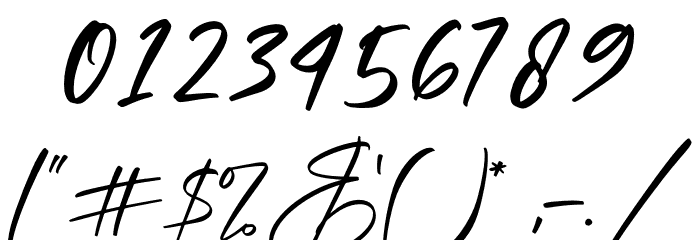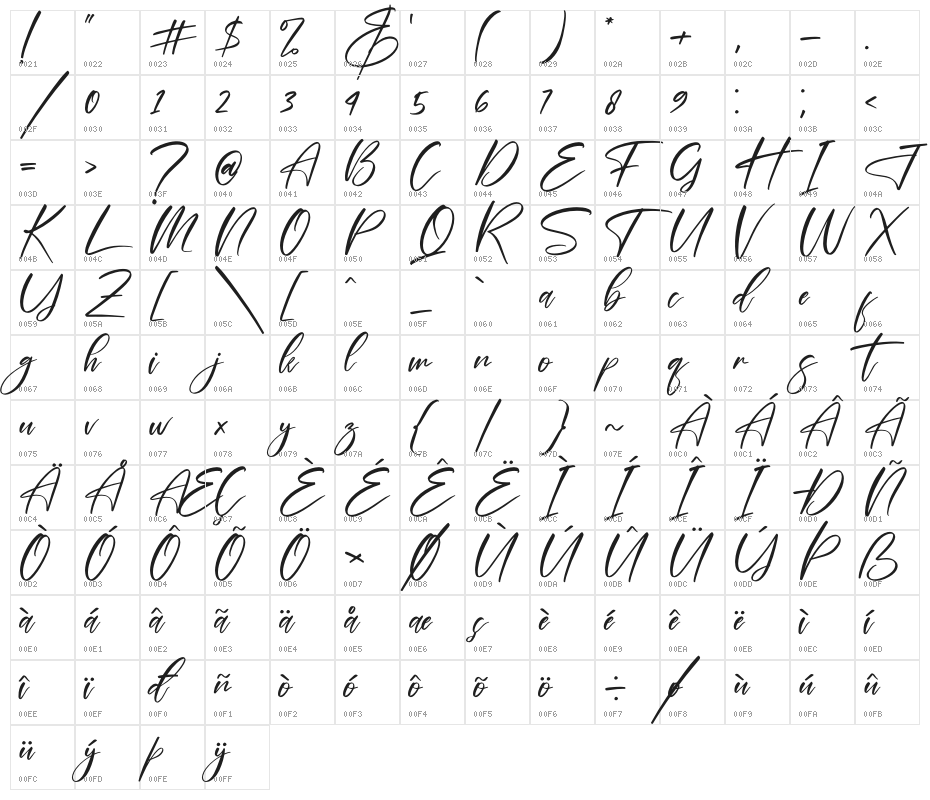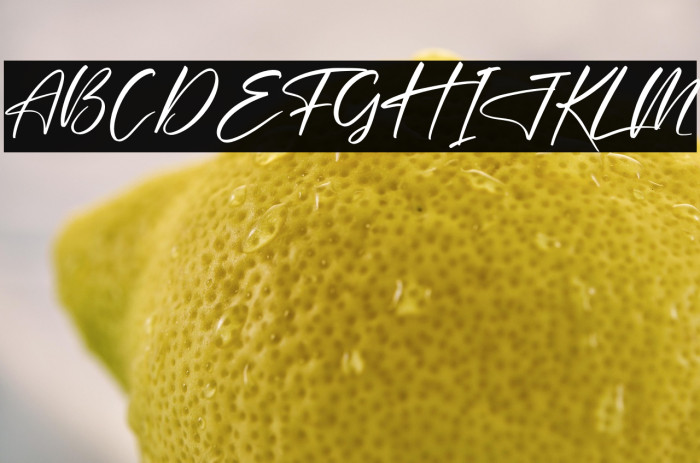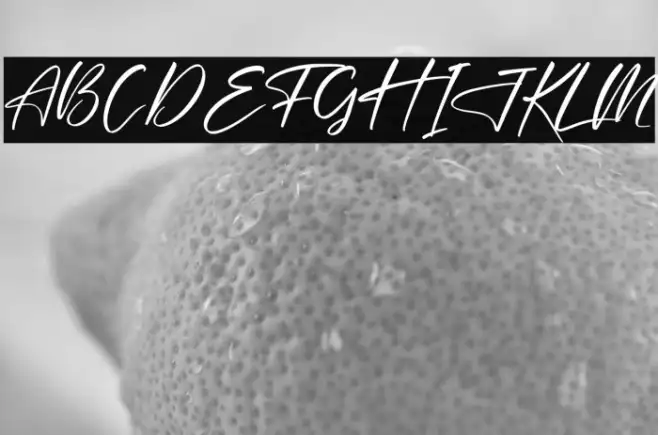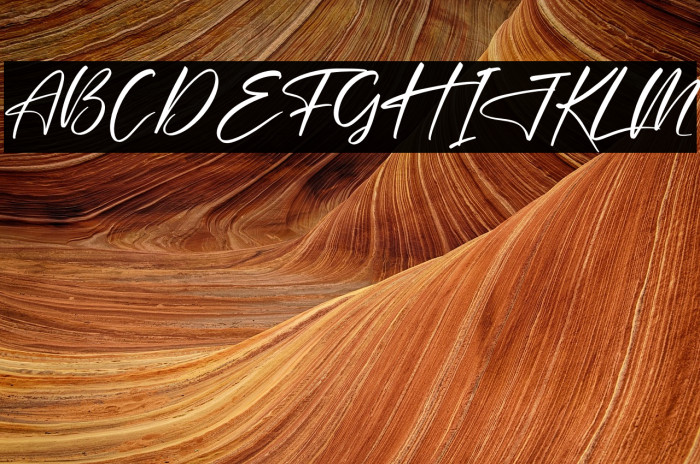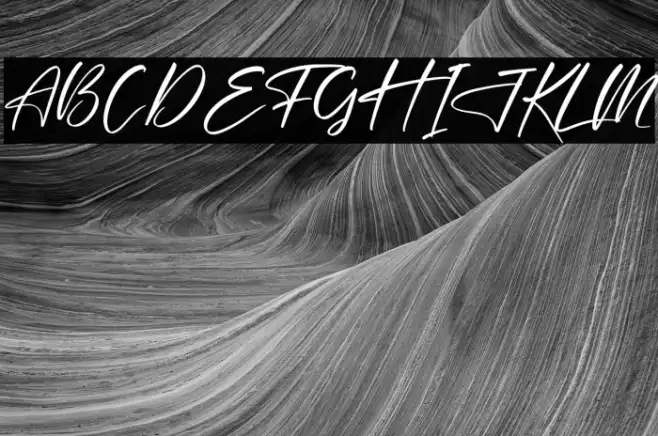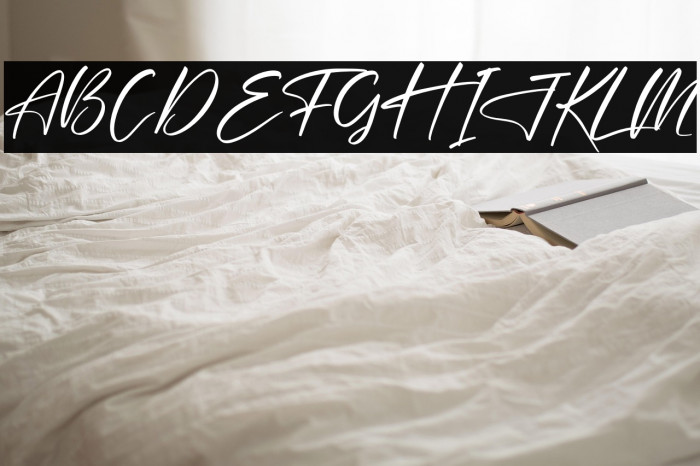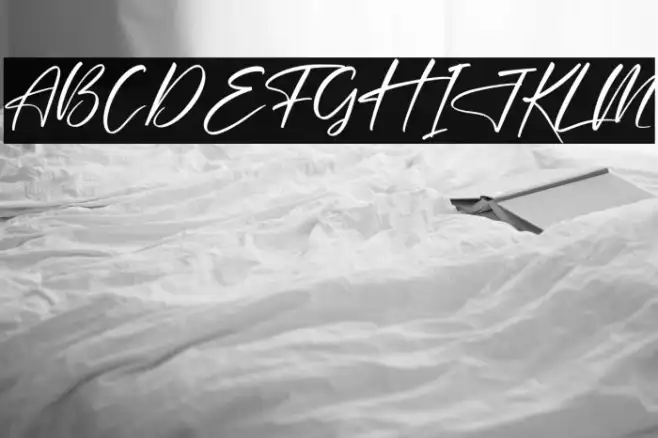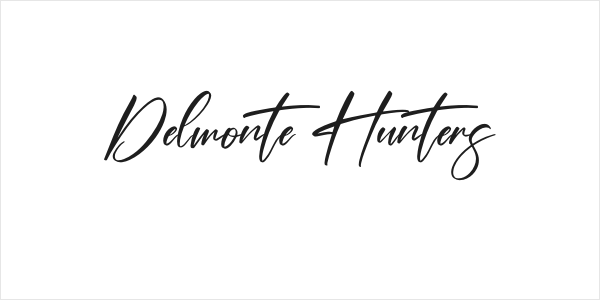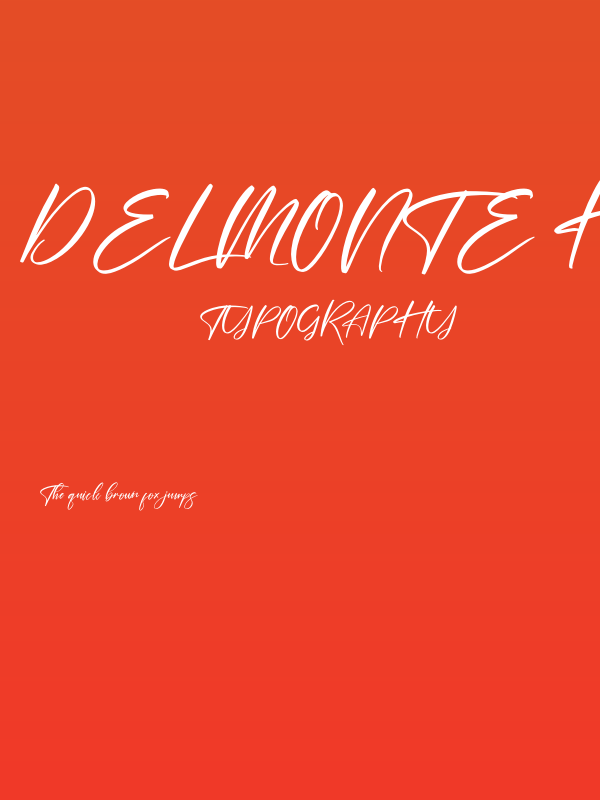
Delmonte Hunters Font
Delmonte Hunters Description
This font exudes a dynamic and expressive style, characterized by its fluid, cursive script that mimics natural handwriting. The letters are elegantly connected, with a slight slant that adds to its graceful appearance. The strokes vary in thickness, providing a sense of movement and energy. The uppercase letters are bold and prominent, while the lowercase letters maintain a consistent flow. Numbers and special characters are crafted with the same attention to detail, ensuring a cohesive look throughout. This font is perfect for projects that require a personal touch, such as invitations, greeting cards, or branding materials.
| Proposed Projects | Ideal for invitations, greeting cards, branding, and any project needing a personal, handwritten touch. |